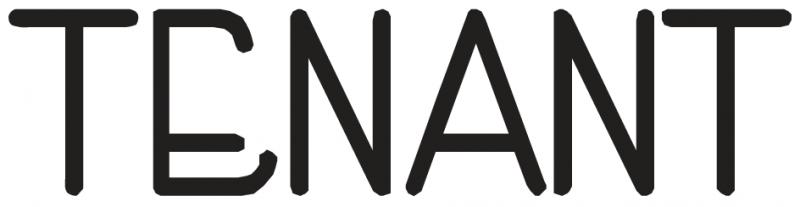
Font ID Help Please - Possible Engraving Font?
Hoping to find this font, although I believe the ends of each letter are probably supposed to be perfectly round. None of these look to be consistent.
Also, could this be an "engraving" font meaning that it is created from simple vector lines?